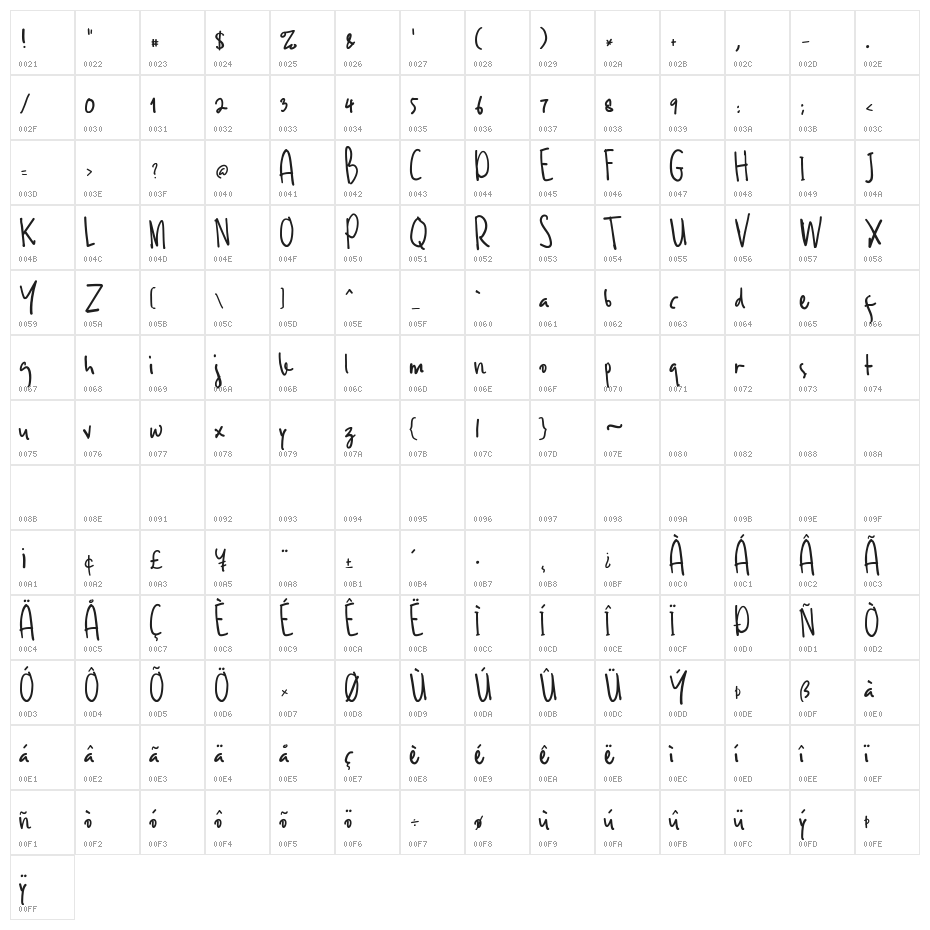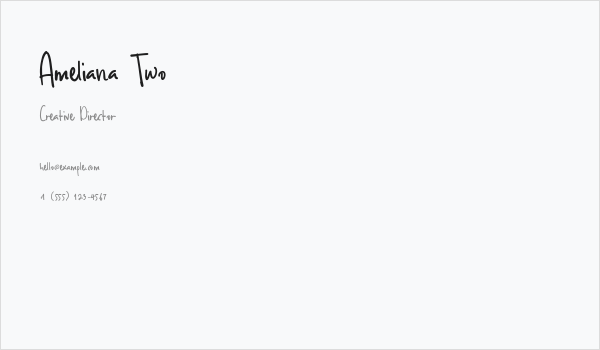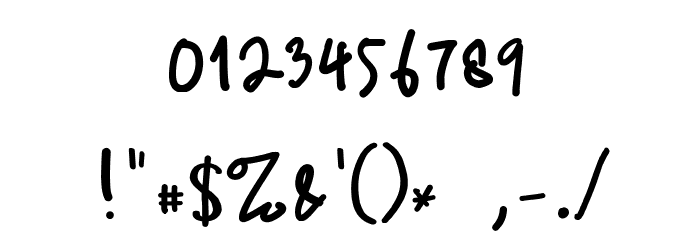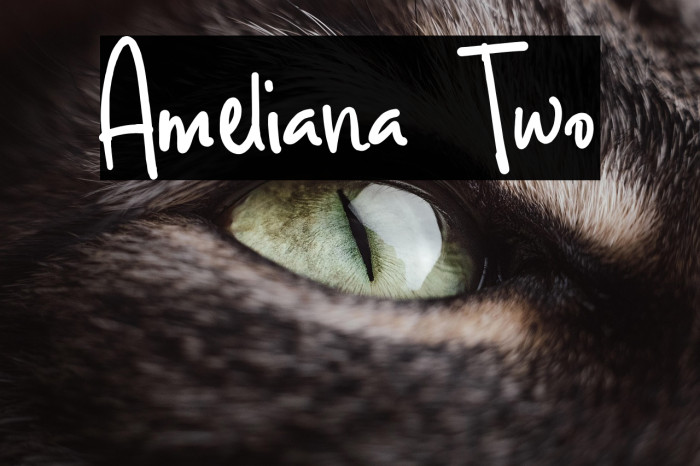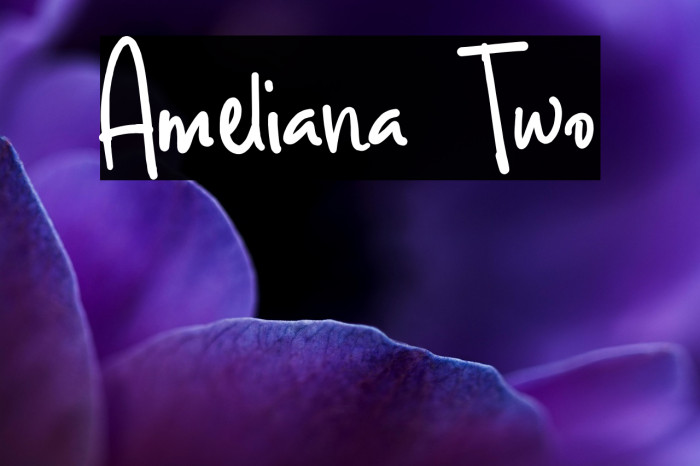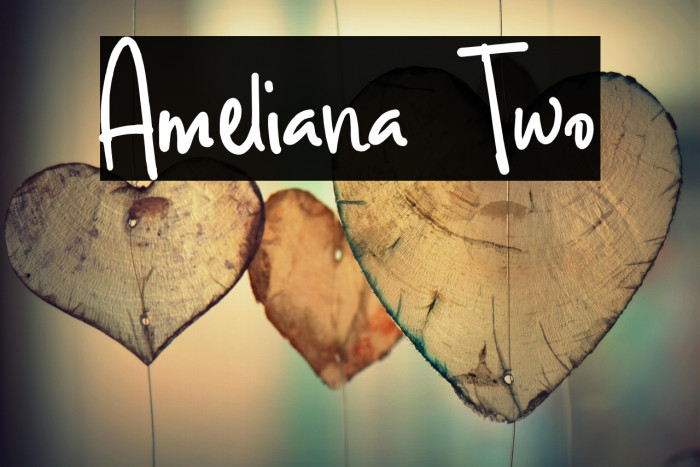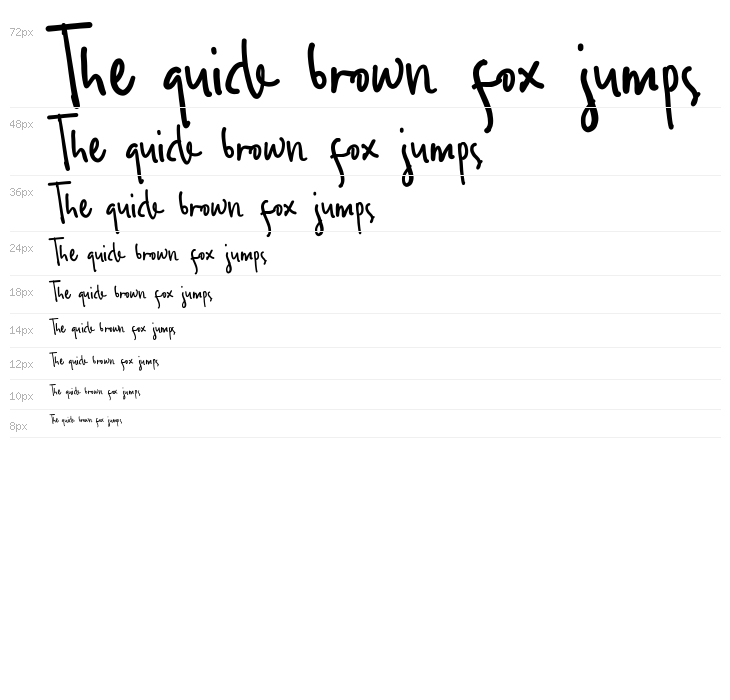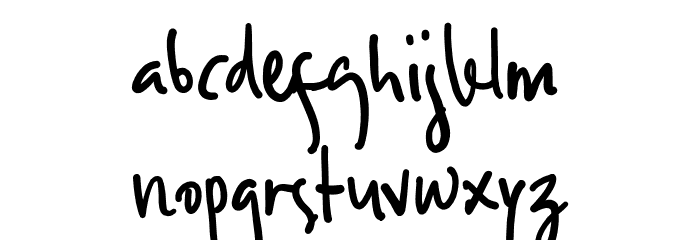
Ameliana Two Font
Ameliana Two Description
This font exhibits a playful and casual handwritten style, characterized by its uneven strokes and organic flow. The uppercase letters are tall and slightly narrow, giving a sense of height and elegance, while the lowercase letters maintain a consistent, flowing baseline that enhances readability. The numerals are distinct and match the overall style, ensuring clarity in numerical data. Special characters are creatively designed, adding a unique flair to the font. The overall appearance is informal yet stylish, making it suitable for a variety of creative projects.